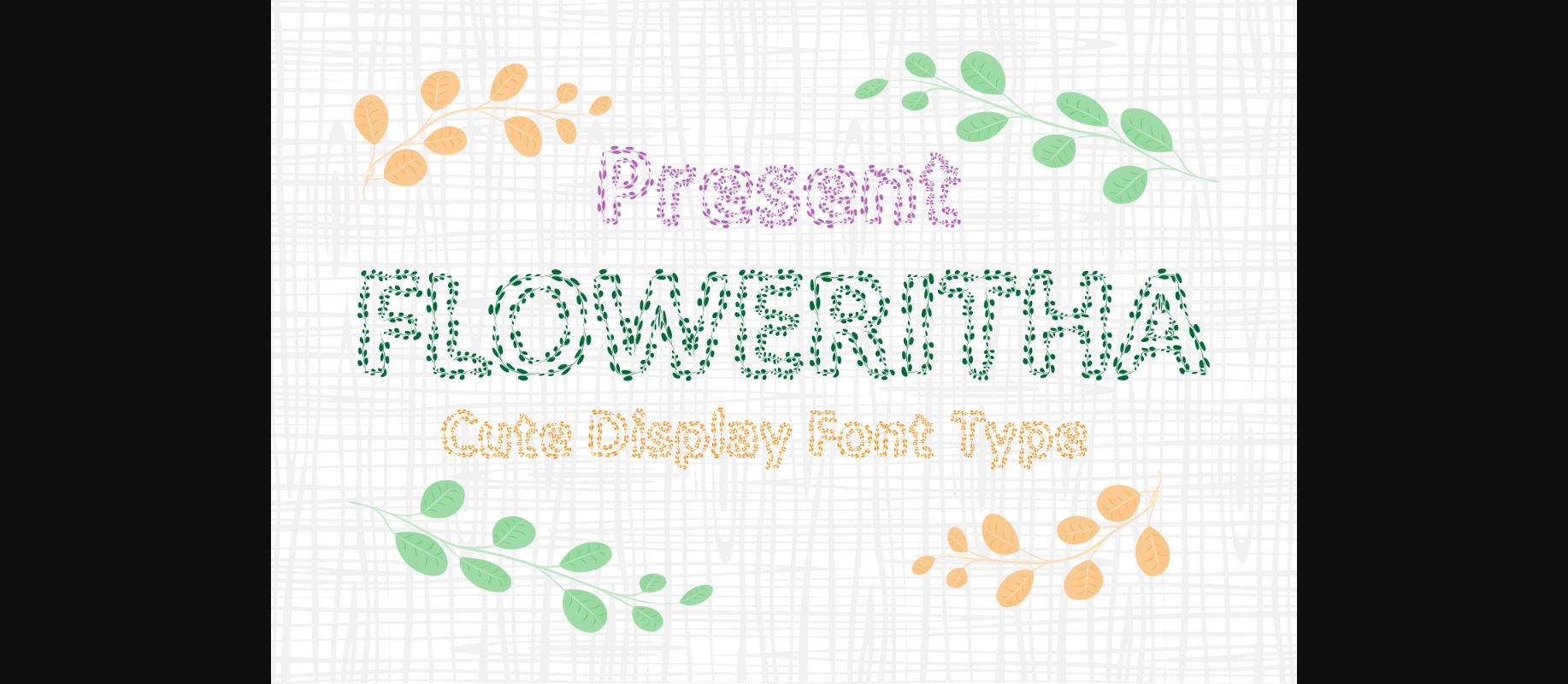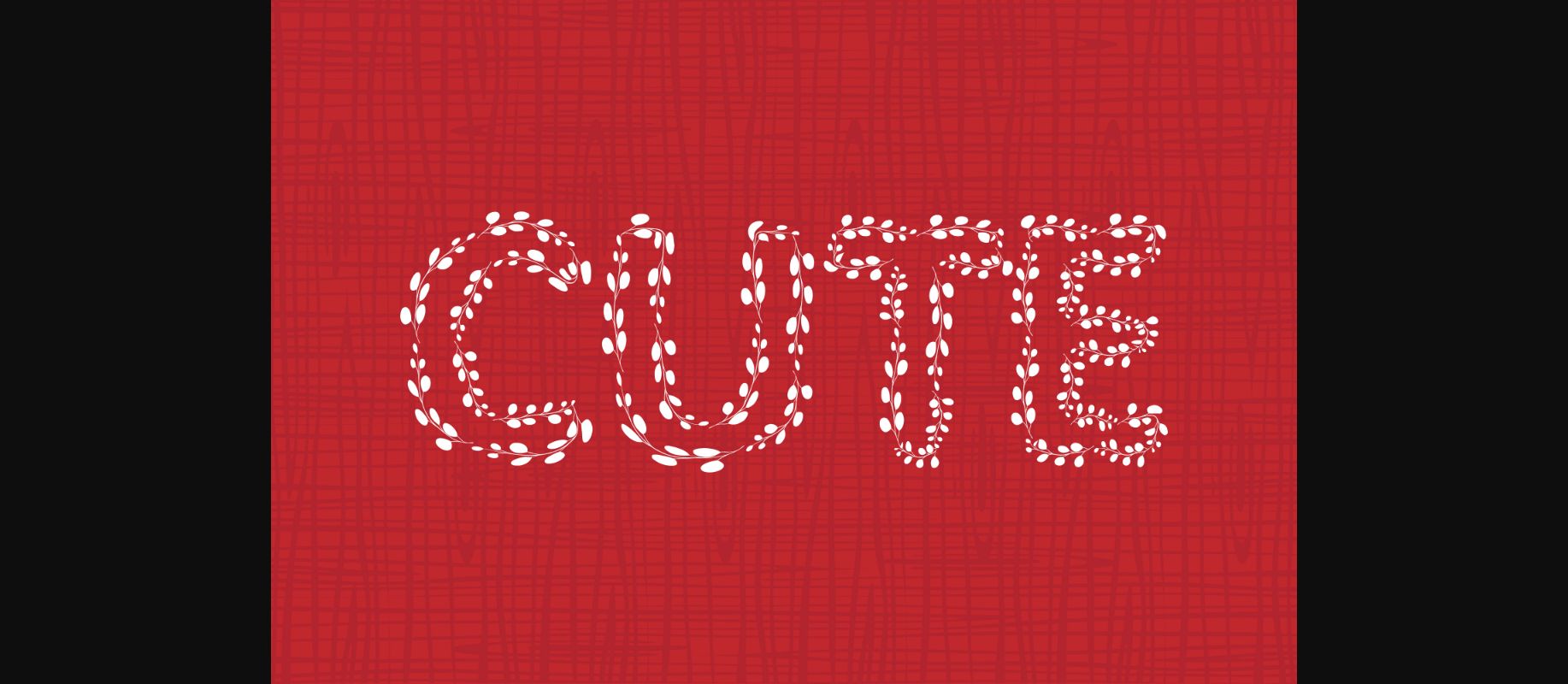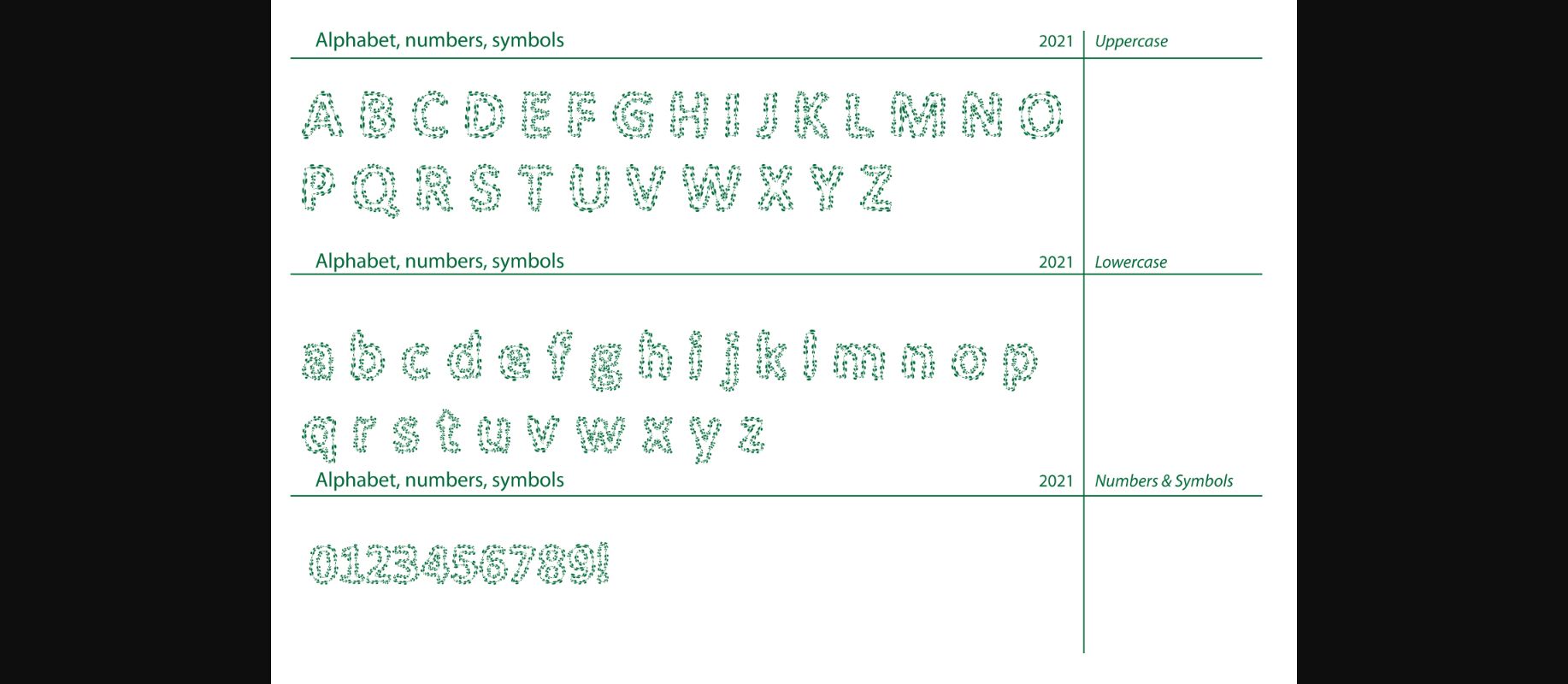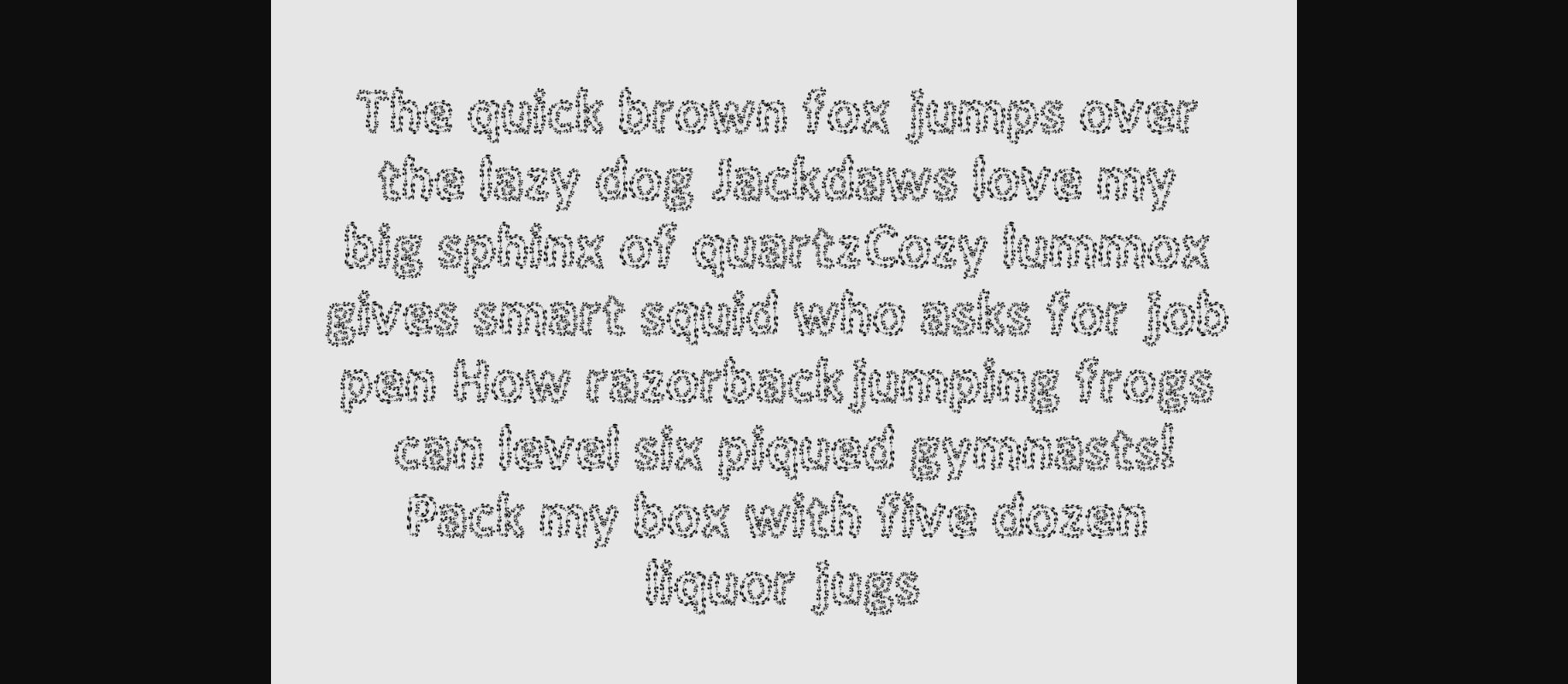
About Floweritha Font
Floweritha is a sweet and beautiful decorative font. Fall in love with its incredibly versatile style and use it to create gorgeous wedding invitations, beautiful stationary art, eye-catching social media posts, and much more!